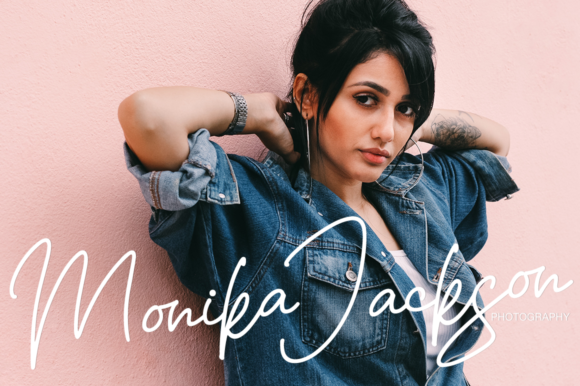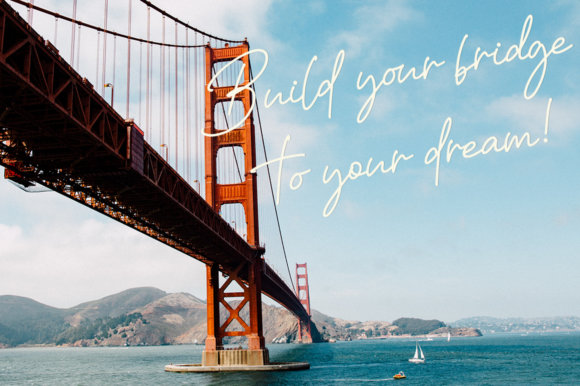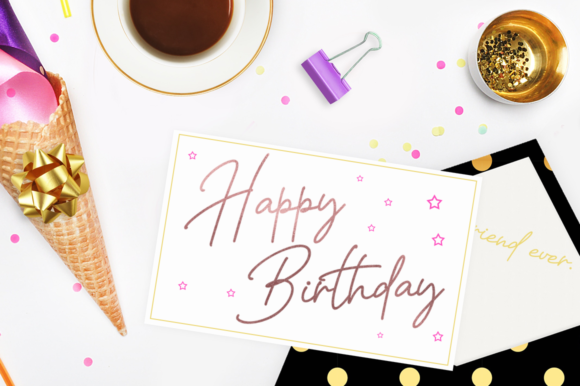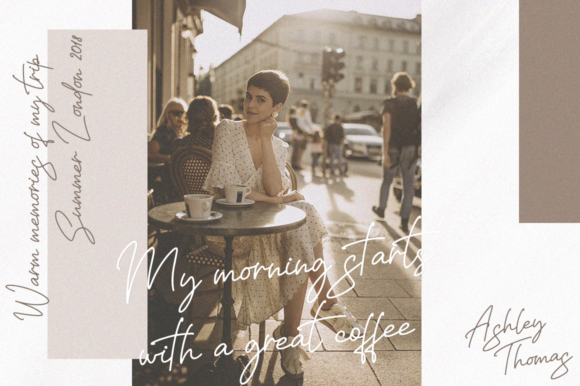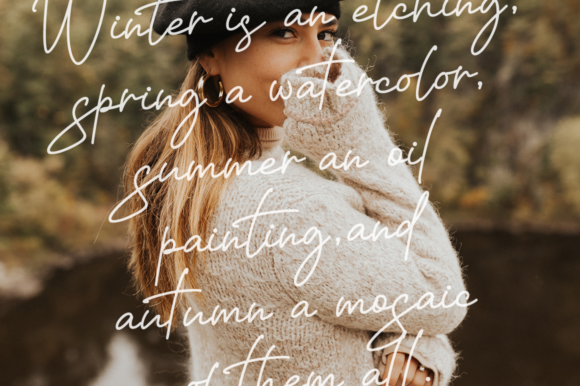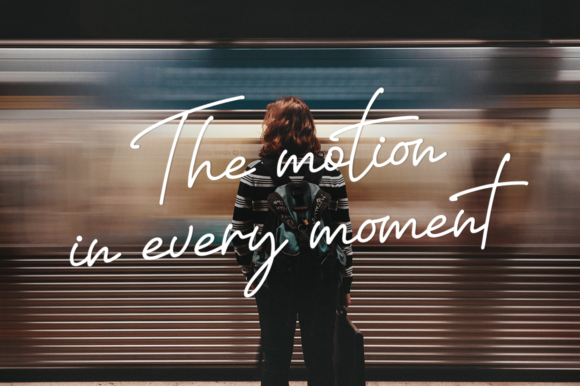
Life in Motion Font
About Life in Motion Font
The Life in motion is a beautiful typeface. Its handwritten style is perfect to add a personal touch to your designs.
It can be used for branding, wedding invitations, logos, book covers, marketing, and much more!